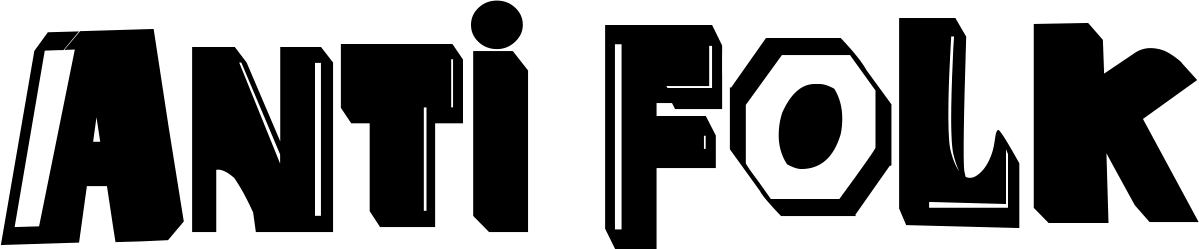
Anti Folk Font
Easily create a playful and creative outline for your typography, using nothing but Anti Folk. Its distorted variants or sharp projecting alternates make this all-caps block font an ideal match for music concert flyers, YouTube covers, promotions, or else.
It all comes down to this simple question. Do you want your design to seem cool and trendy or not? If you’re up for it, Anti Folk is just a couple of clicks away folks!